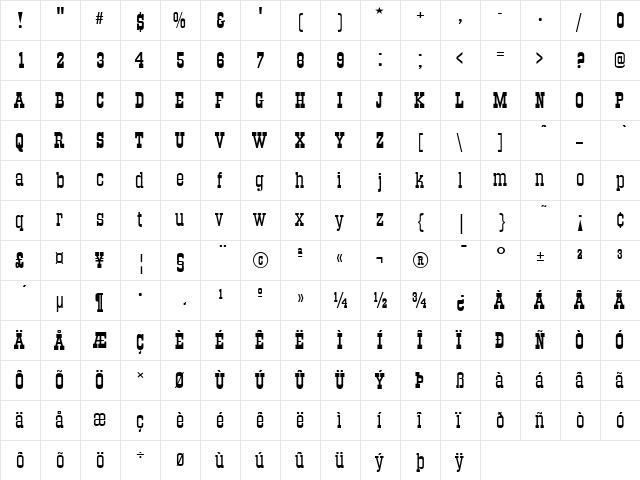
OldTownExt Normal
Design Context for OldTownExt Typeface
OldTownExt takes a measured approach to typography — its balanced proportions and neutral character make it a reliable workhorse for both digital and print work.
Pro Tip: Use OldTownExt in both headline and body roles to test its range before committing to a single application.